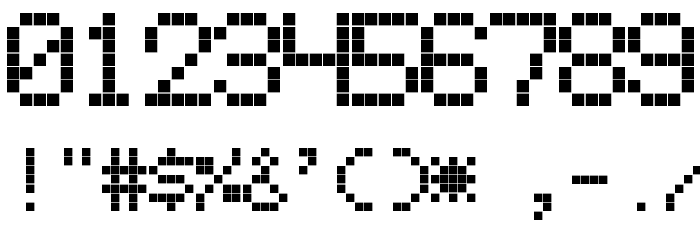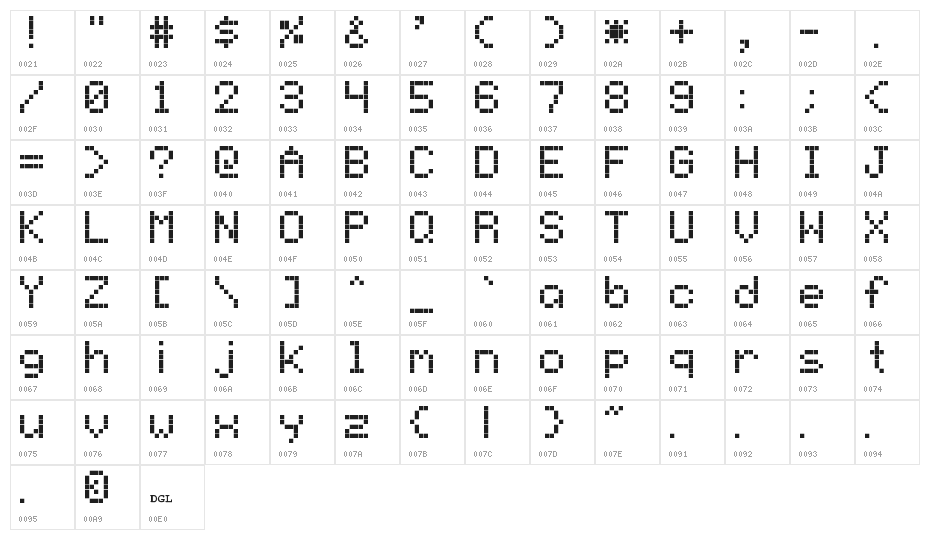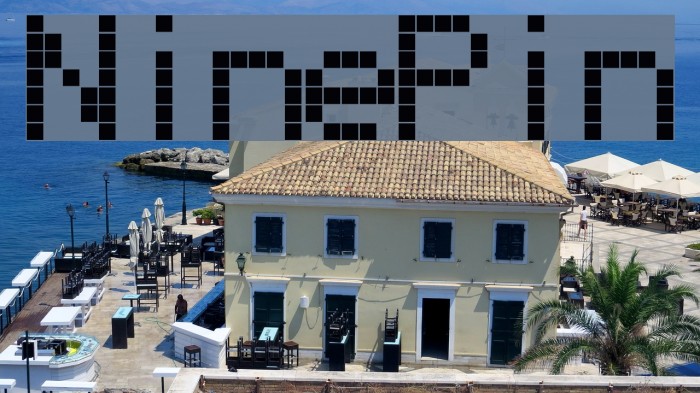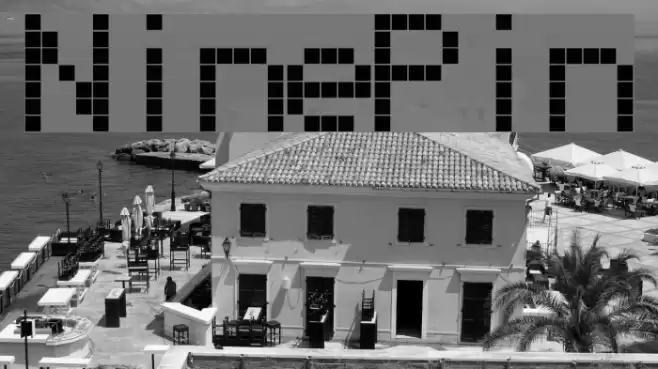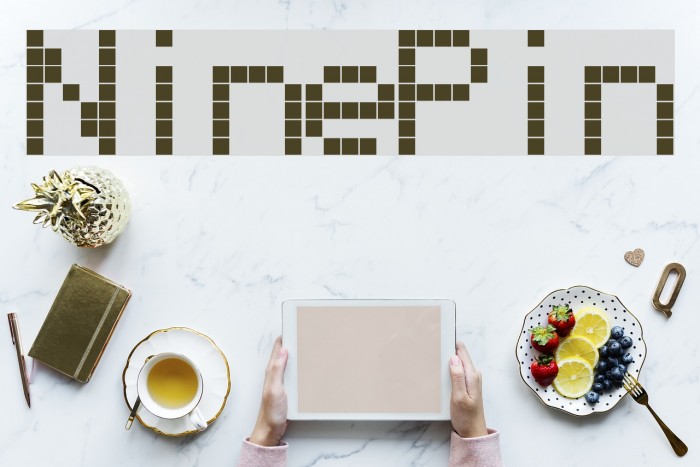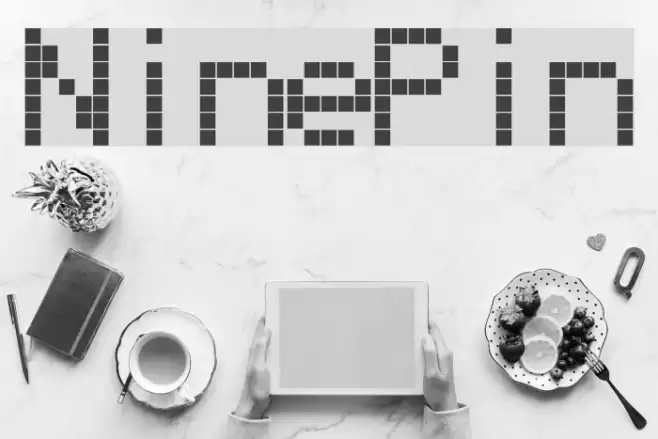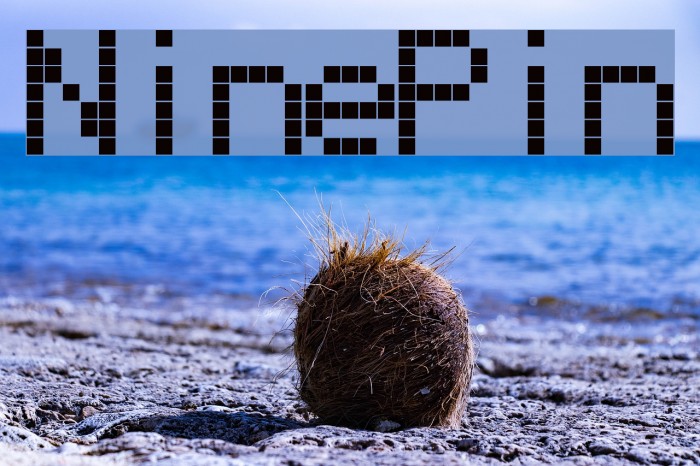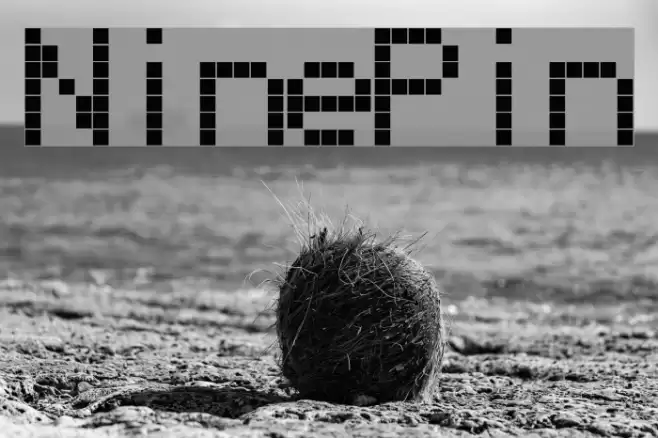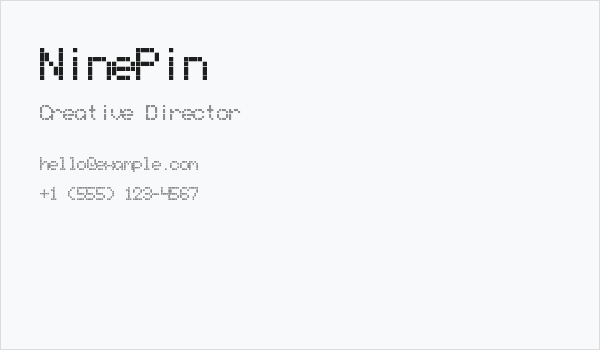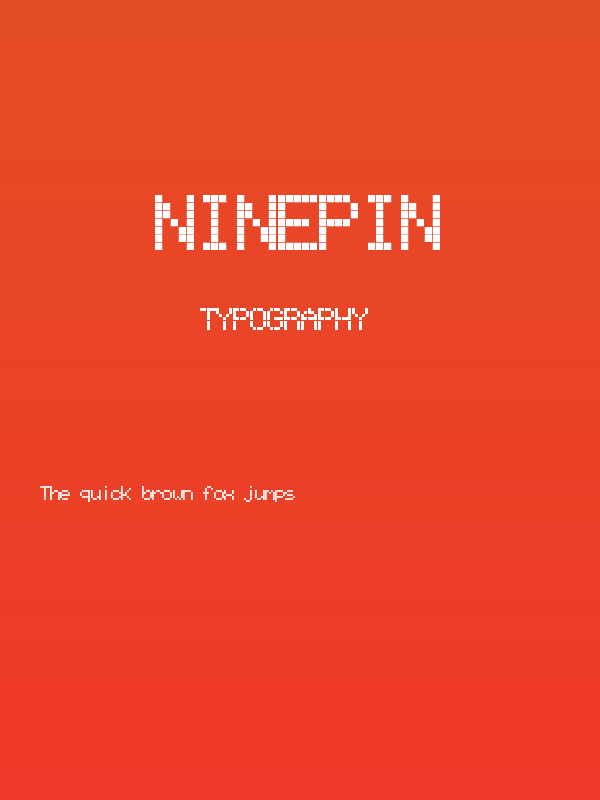
NinePin Font
NinePin Description
This font features a unique pixelated design, reminiscent of early digital displays and retro video games. Each character is composed of a grid of small squares, giving it a distinct, blocky appearance. The uppercase and lowercase letters maintain a consistent height, with the lowercase being slightly smaller in width. Numbers and special characters follow the same pixelated style, ensuring uniformity across all elements. The font's geometric structure makes it highly legible, even at smaller sizes, while its nostalgic aesthetic adds a playful, vintage touch to any project.
| Use Case | Headlines, Logos, Digital Art |
| Proposed Projects | Ideal for retro-themed designs, video game graphics, digital art projects, and any creative work that requires a nostalgic or playful touch. |